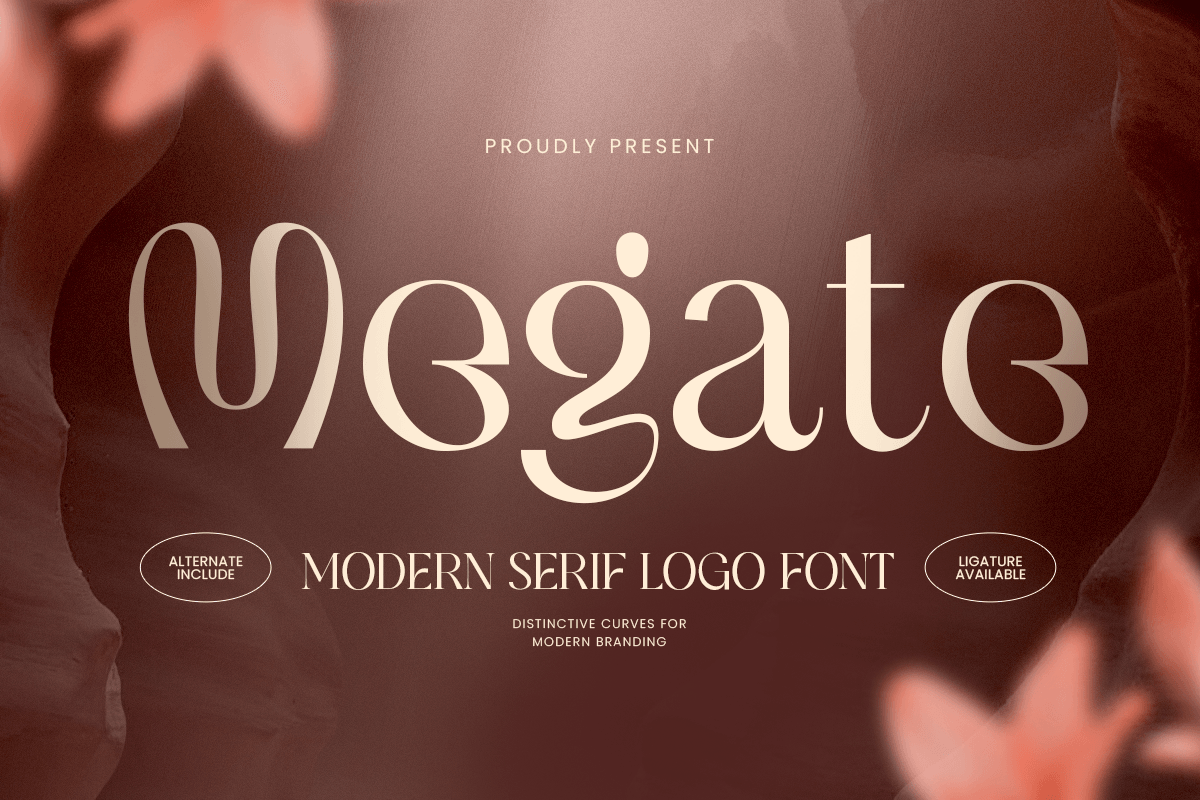
Megate
-Serif Elegant Logo FontMegate - Serif Elegant Logo Font
Megate is an elegant serif logo font designed to create sophisticated and memorable visual identities. With refined serif details, balanced proportions, and a timeless aesthetic, this typeface is perfect for luxury logos, premium branding, editorial layouts, packaging, and high-end creative projects.
Crafted for designers who value elegance and versatility, Megate combines classic serif beauty with modern design sensibility. Its graceful letterforms create a polished and professional appearance, making it ideal for fashion brands, beauty products, boutique identities, wedding stationery, and premium lifestyle designs.
Whether used for logo marks, magazine titles, invitations, or packaging labels, Megate delivers a refined typographic presence that enhances every composition across both print and digital applications.
Megate – Serif Elegant Logo Font Features
Elegant serif design optimized for luxury logo branding
Perfect for logos, packaging, editorials, and premium identities
Refined letterforms with timeless visual character
Ideal for fashion, beauty, wedding, lifestyle, and boutique brands
OpenType features for enhanced typographic styling
Create an elegant and timeless identity with Megate – the perfect serif logo font for luxury branding, premium packaging, and sophisticated design. ✨